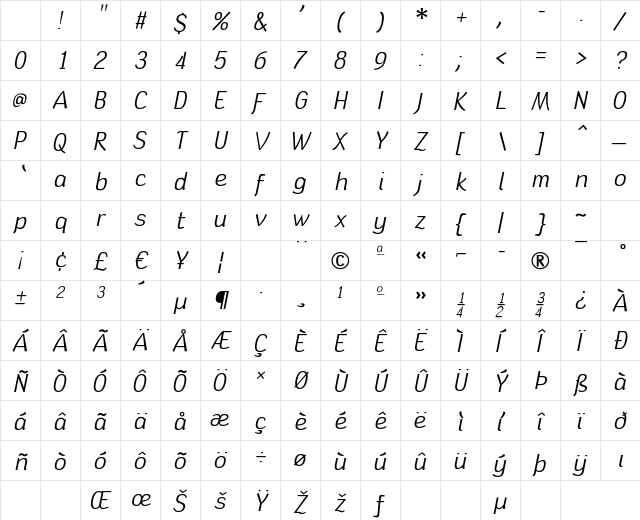
Complete Tin Birdhouse Italic glyph index. Displaying only characters natively supported by Tin Birdhouse Italic font.
Tin Birdhouse is a composed and adaptable typeface that performs quietly and consistently across a wide range of design contexts. The slanted form adds forward momentum and visual energy.
Pro Tip: Use Tin Birdhouse for emphasis, pull quotes, and subheadings where its slanted energy can add rhythm to the layout.